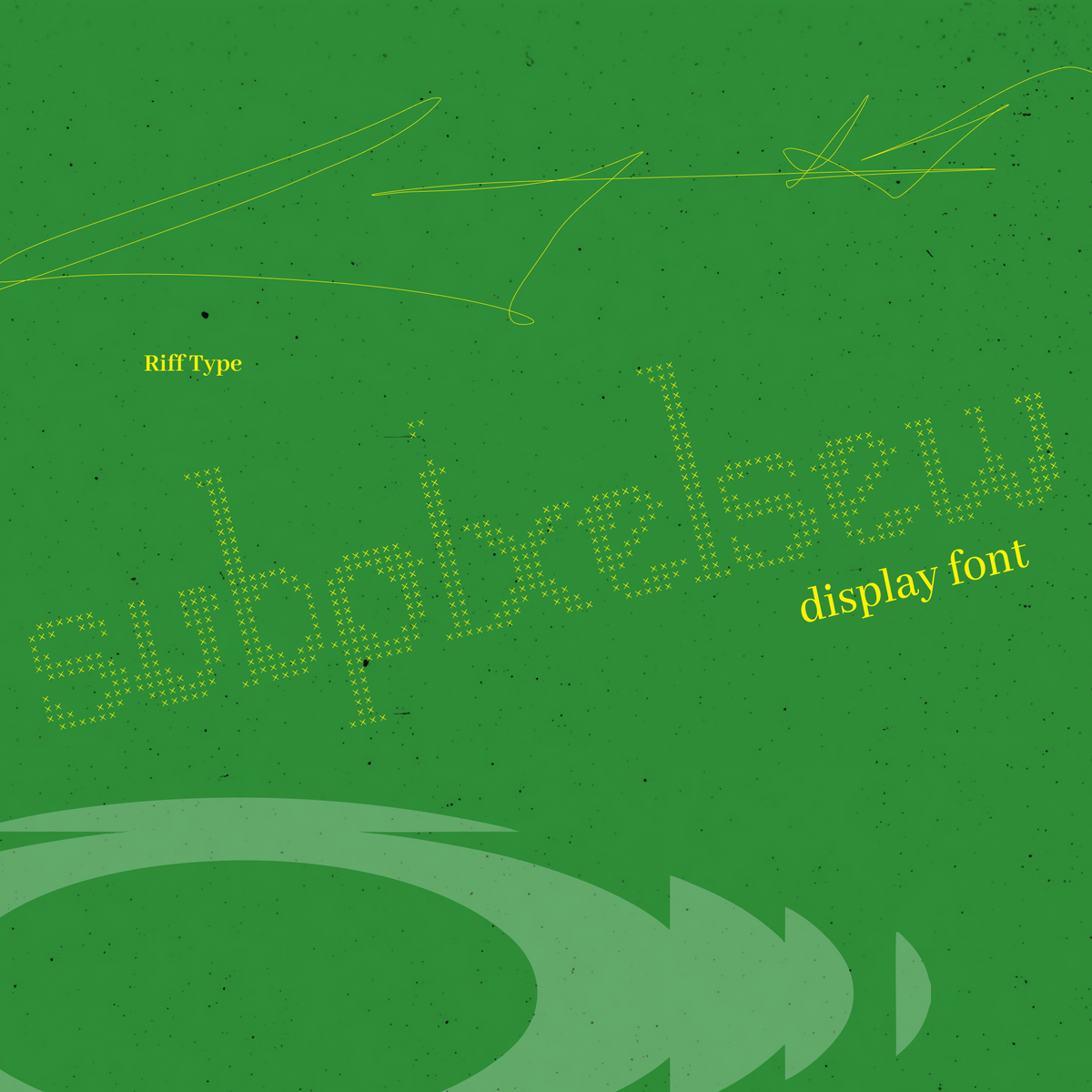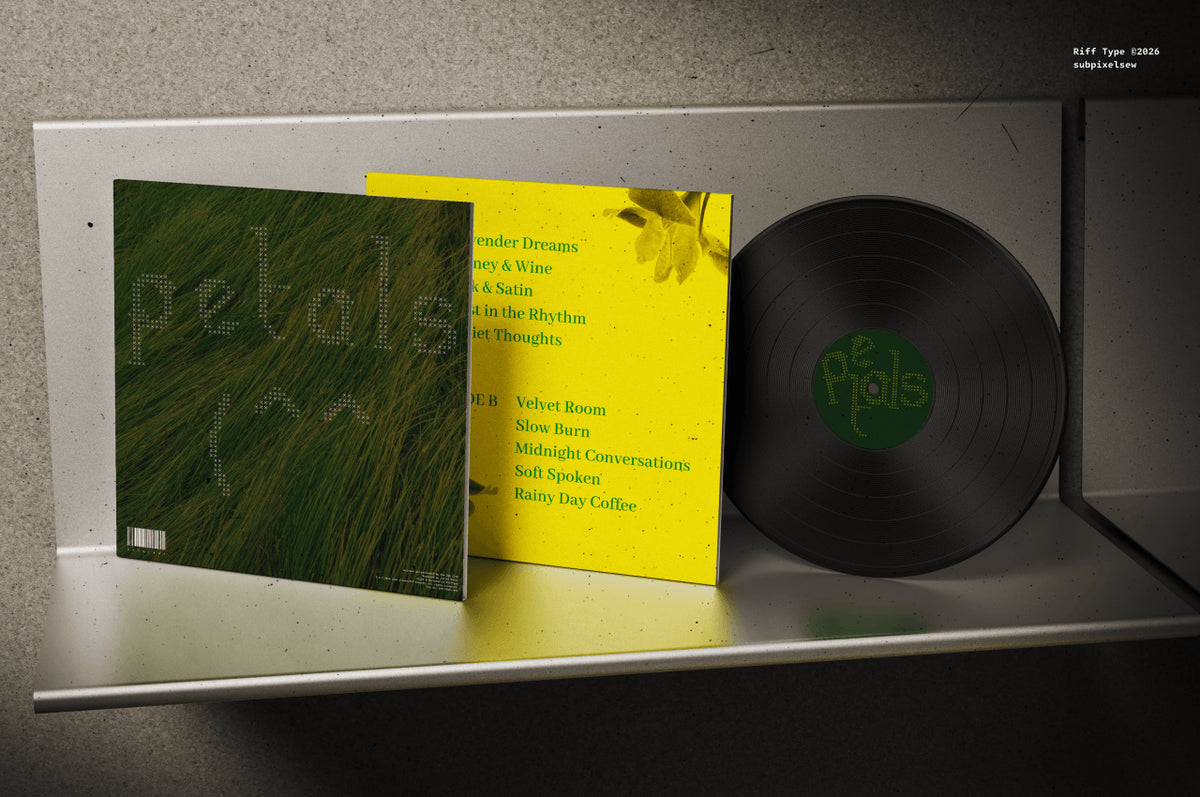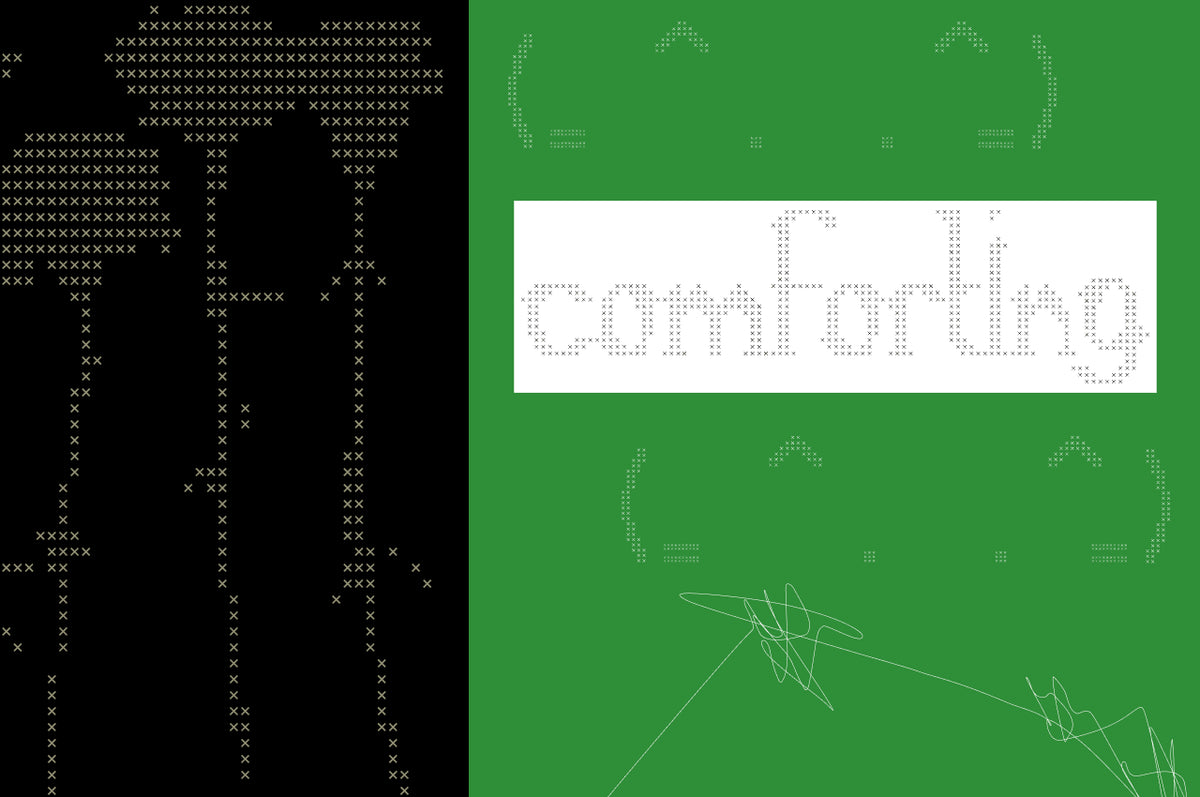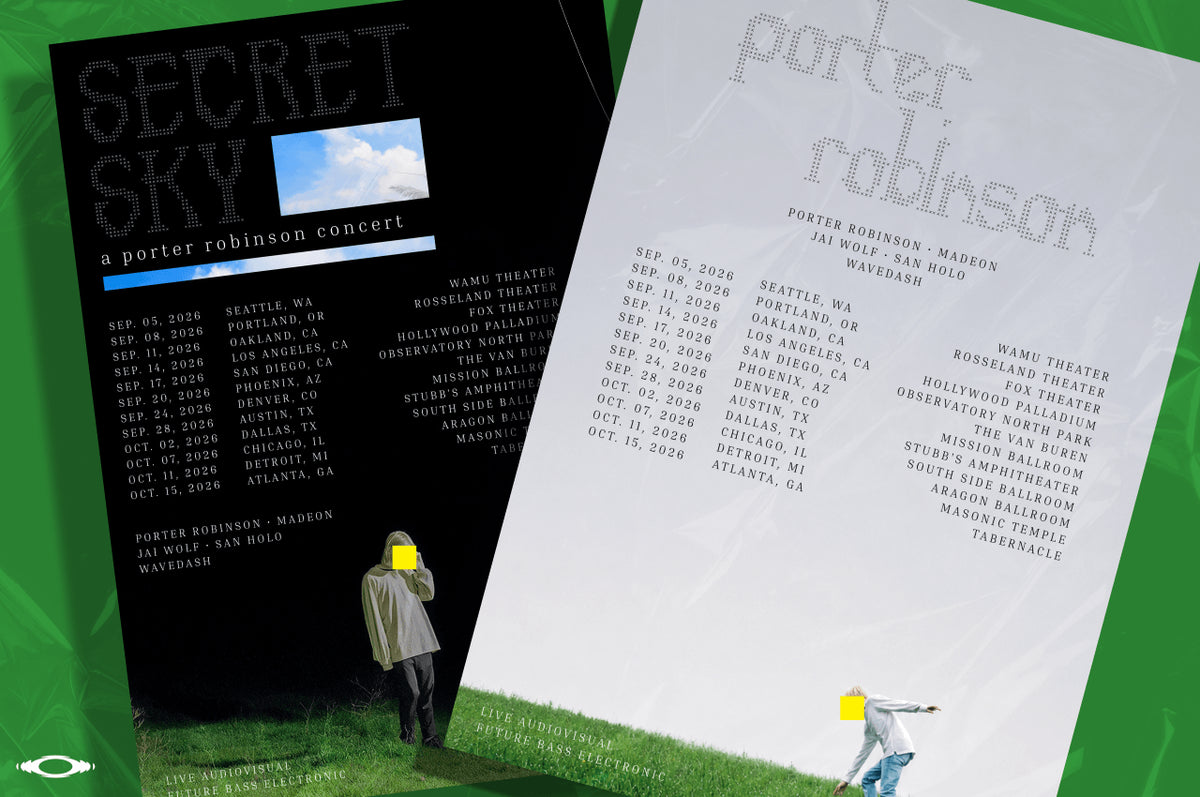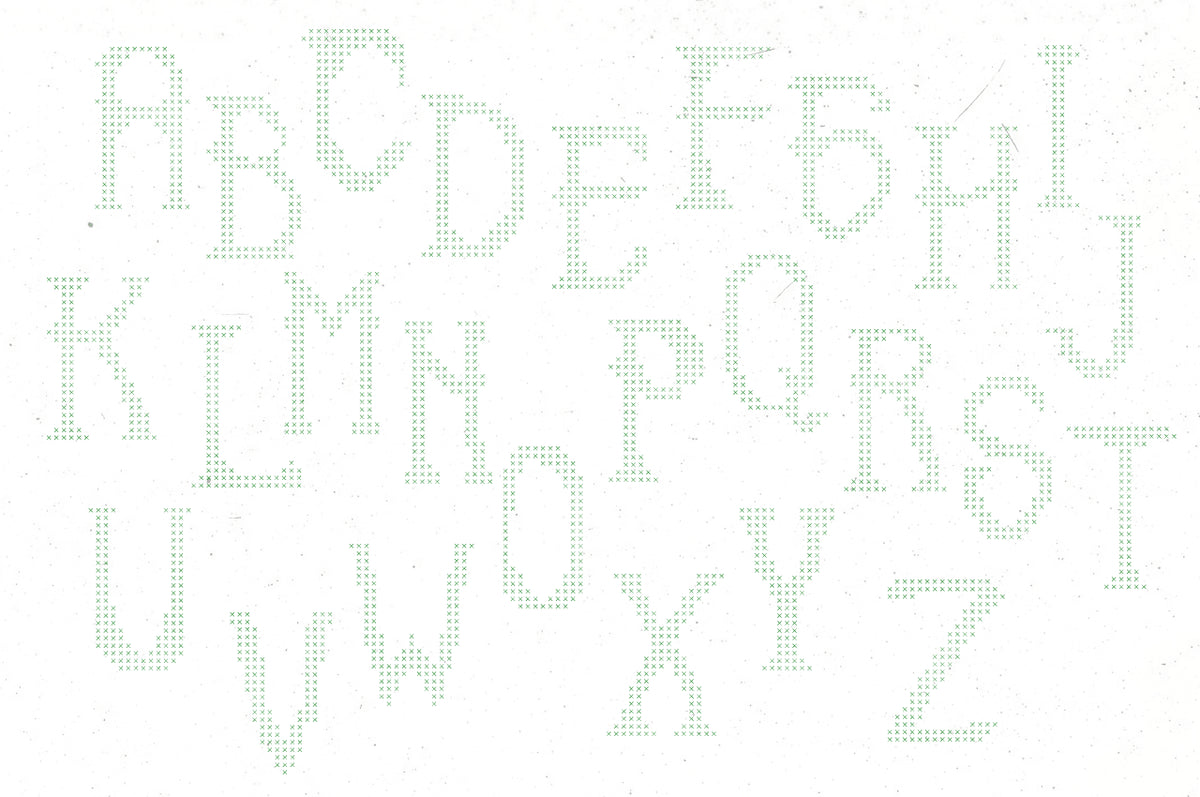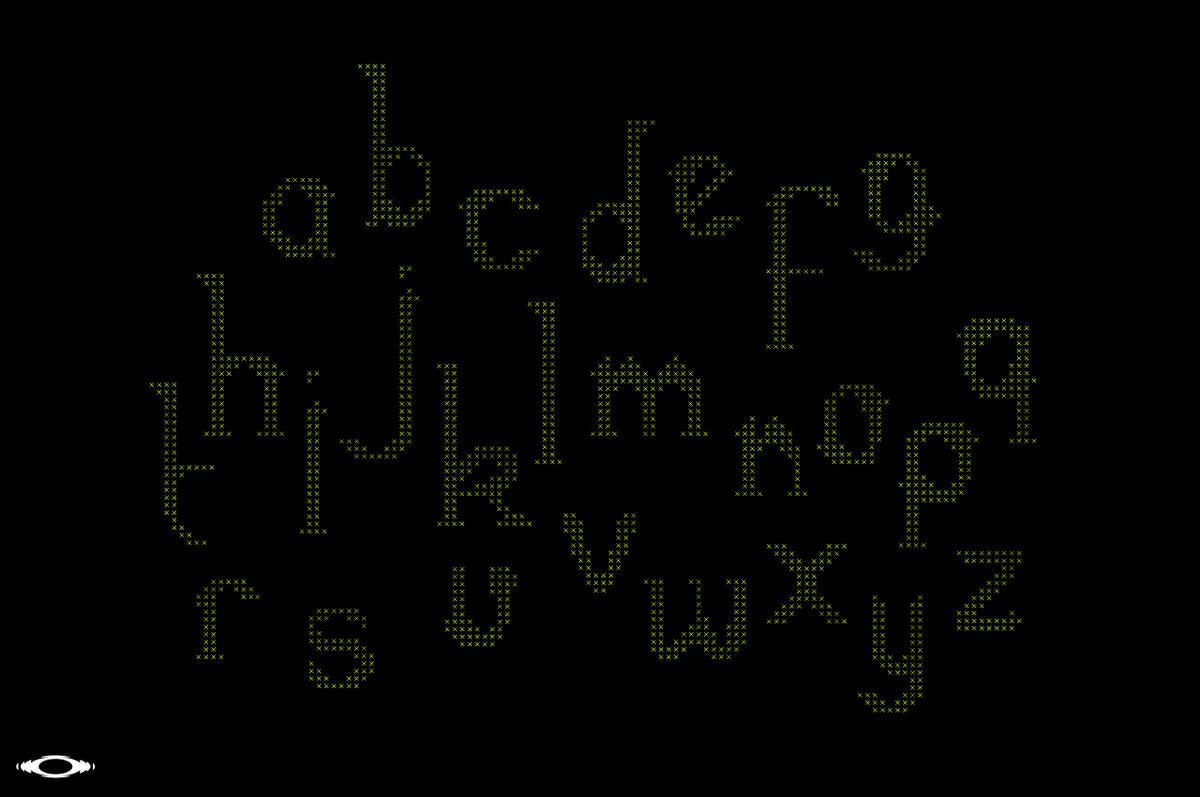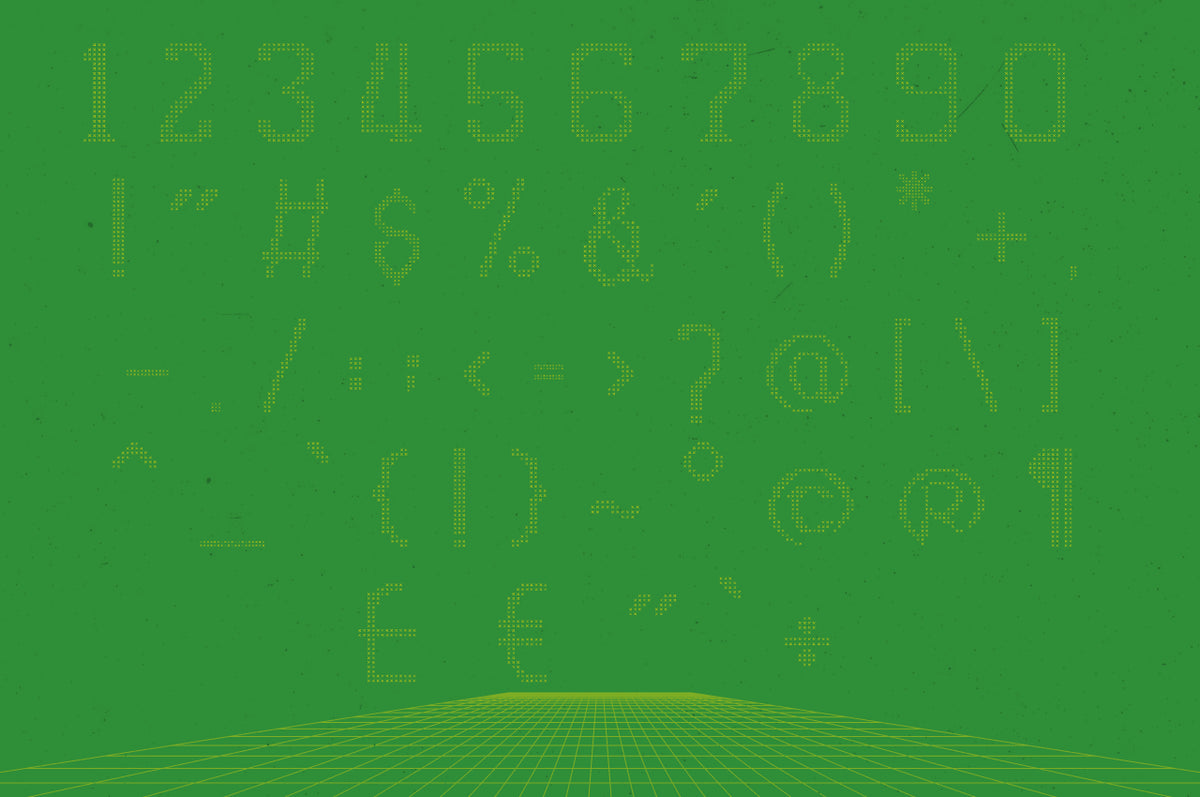
Subpixelsew - Chiptune Pixel Font
Subpixelsew is a unique, cross-stitch inspired bitmap display font designed for the digital era. Built entirely from micro "X" grids, this typeface bridges the gap between retro 8-bit video game aesthetics, traditional needlework, and modern electronic music culture.
Subpixelsew is a bitmap display font built from micro "X" grids, combining cross-stitch patterning with 8-bit pixel design. The package includes TTF, OTF, WOFF, and WOFF2 file formats.